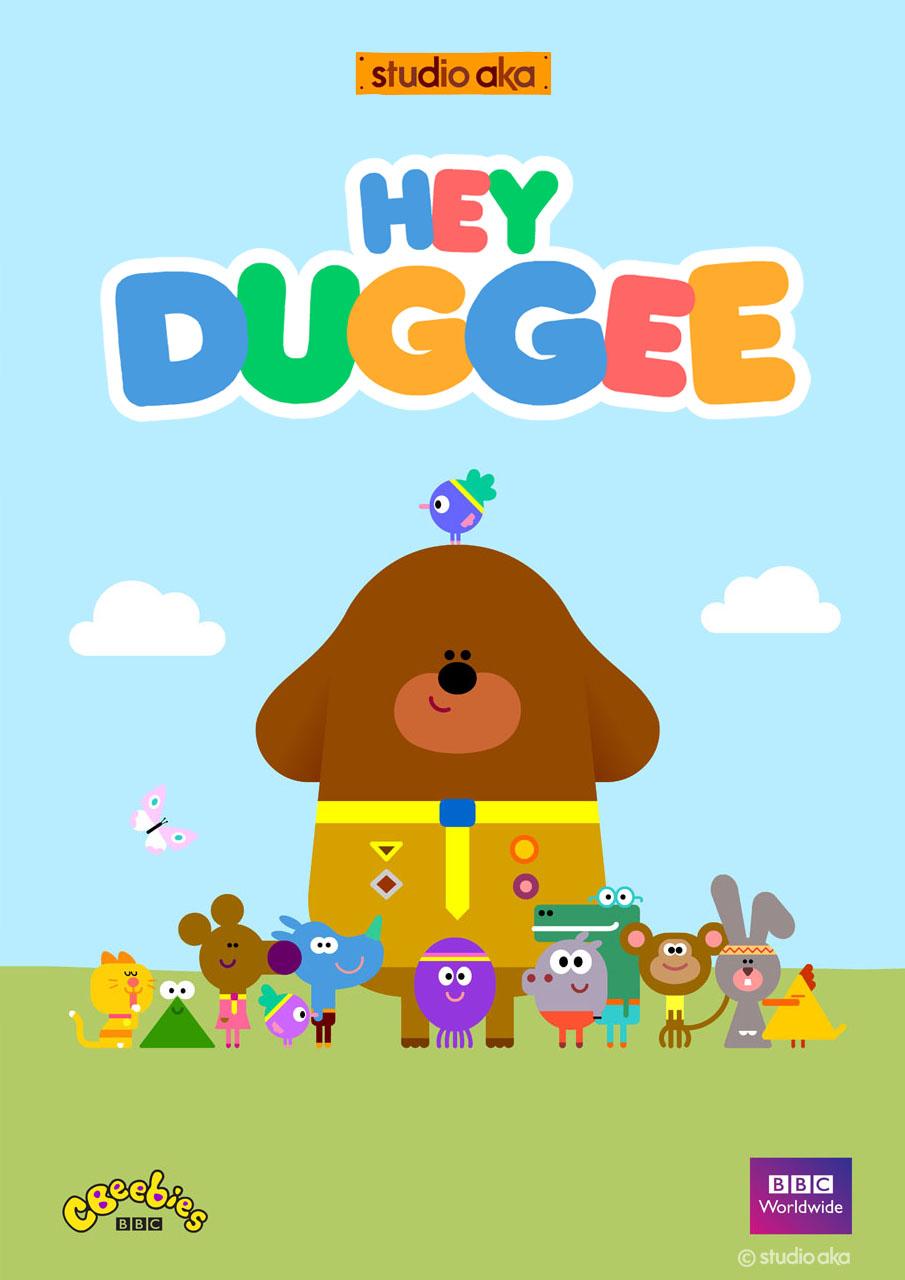
Hey Duggee Font
AdventureHey Duggee is a British preschool animated television program produced by Studio AKA in collaboration with BBC Studios. The TV series follows the adventures of a group of animal friends who earn badges for completing various tasks, led by a friendly and encouraging dog named Duggee.
The Hey Duggee TV series uses a single-style plump sans serif font called Frankfurter. Originally designed by Bob Newman in 1970, the design has been improvised by other designers.